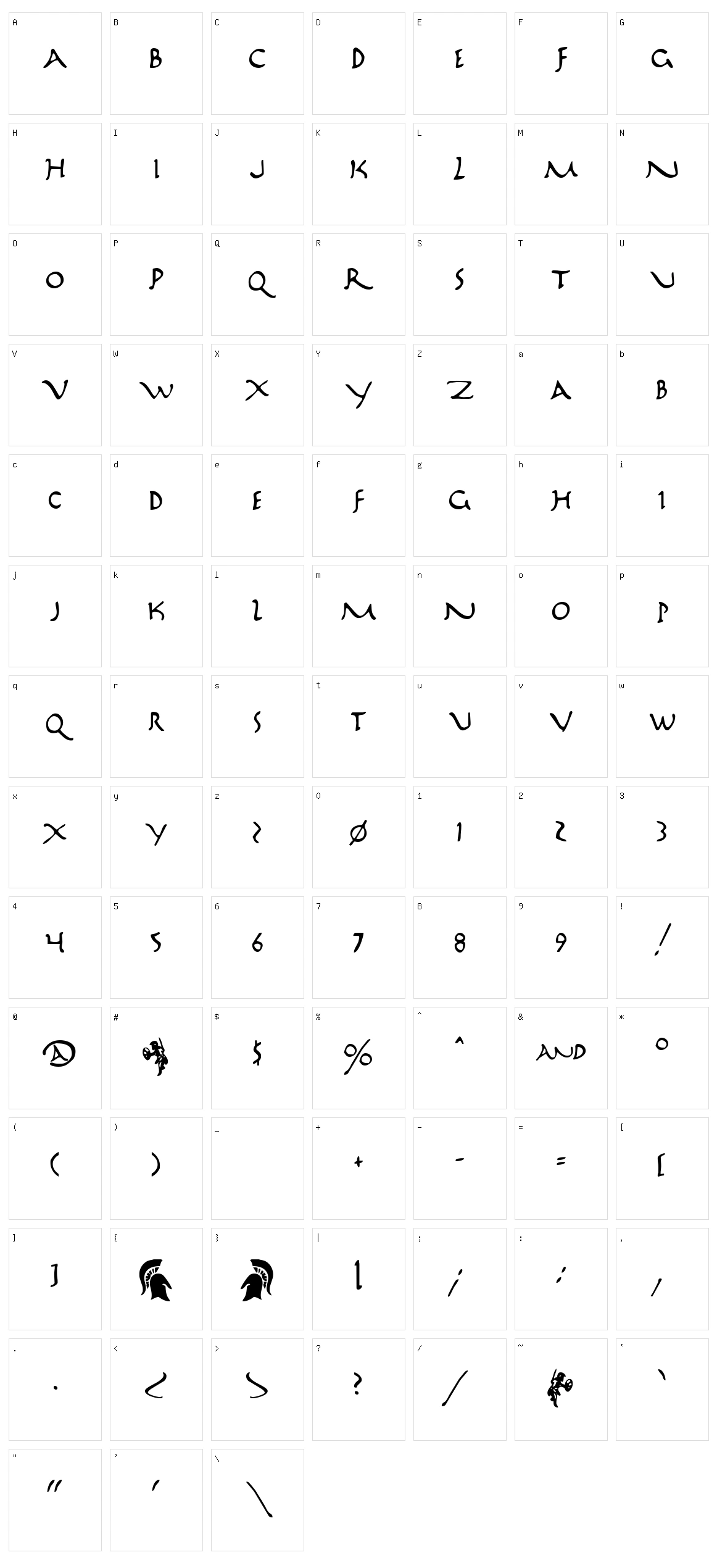
Marathon II is the same as Marathon, except that the space character in Marathon II contains a round dot for a more ancient feel to the font.
These fonts have alternate letters in the upper and lower cases.